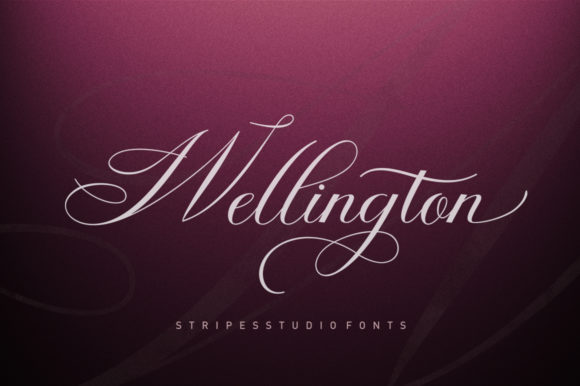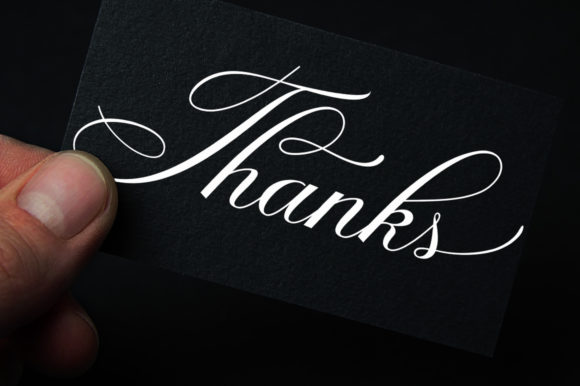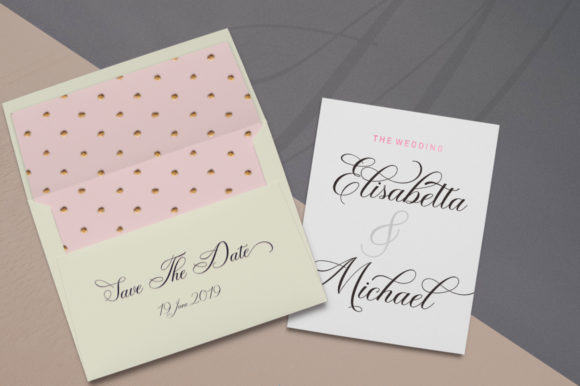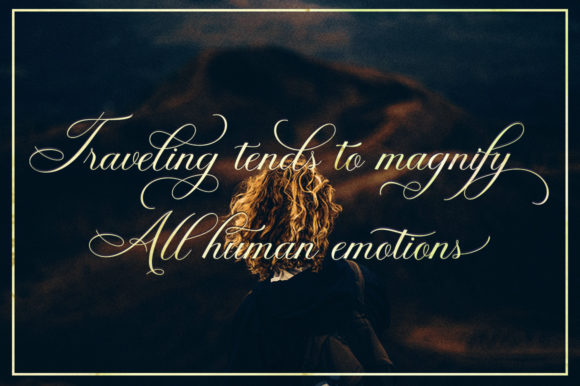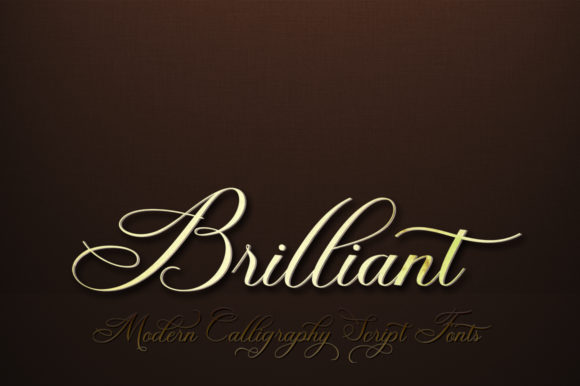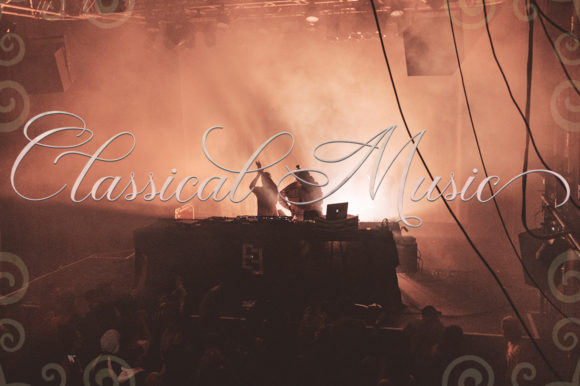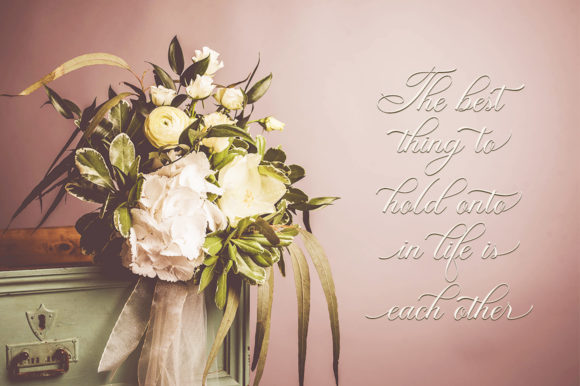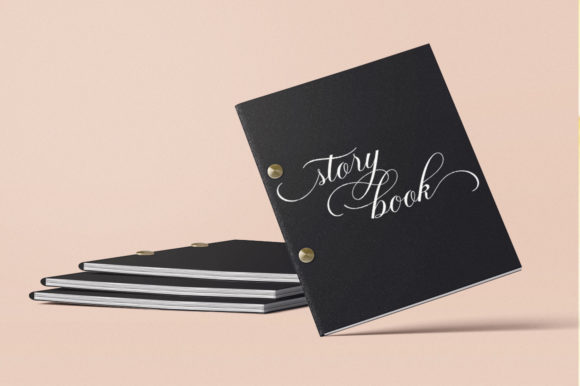
Wellington Script Font
About Wellington Script Font
The Wellington is a modern handwritten script. It’s easy to use and has a great readability. Perfect for branding designs!